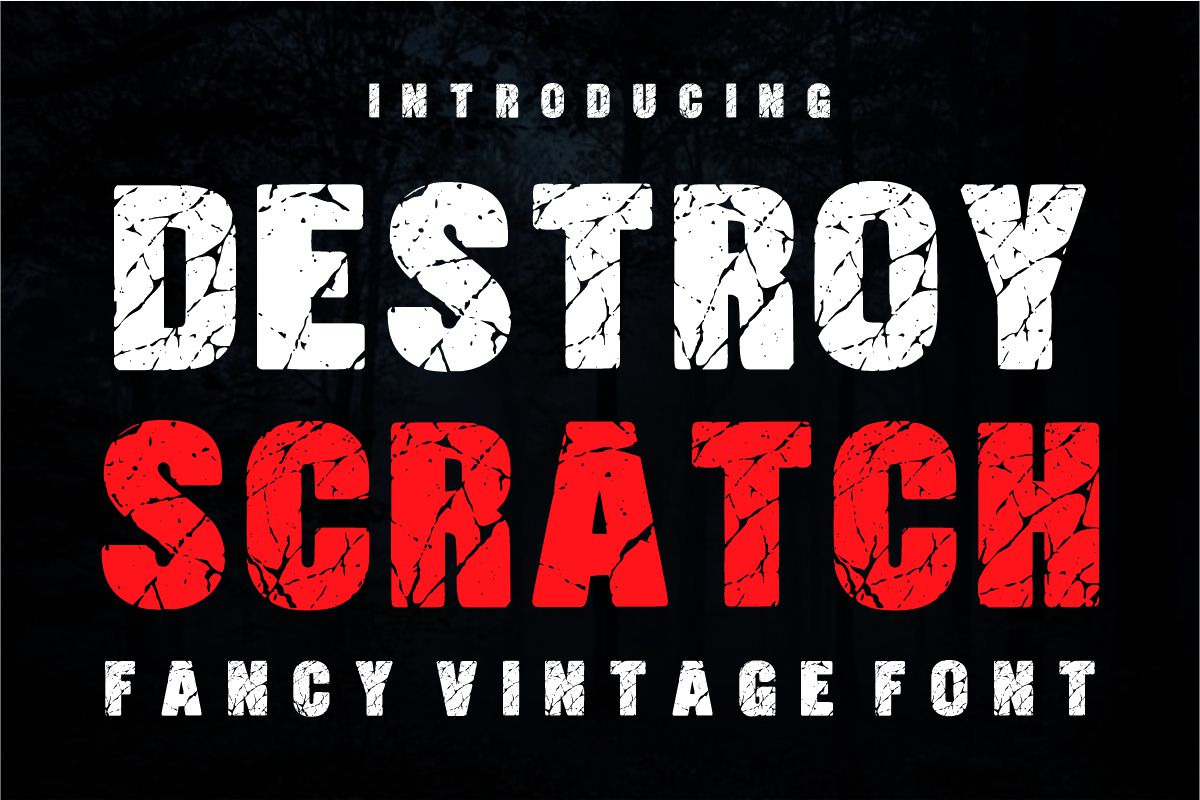
Destroy Scratch Font
Destroy Scratch is a Vintage, Retro, Destroy, grunge bold display font perfect for various projects such as blog posts, logos, branding, ads, invitations, greeting cards, planners, photo albums, decorations, and much more.